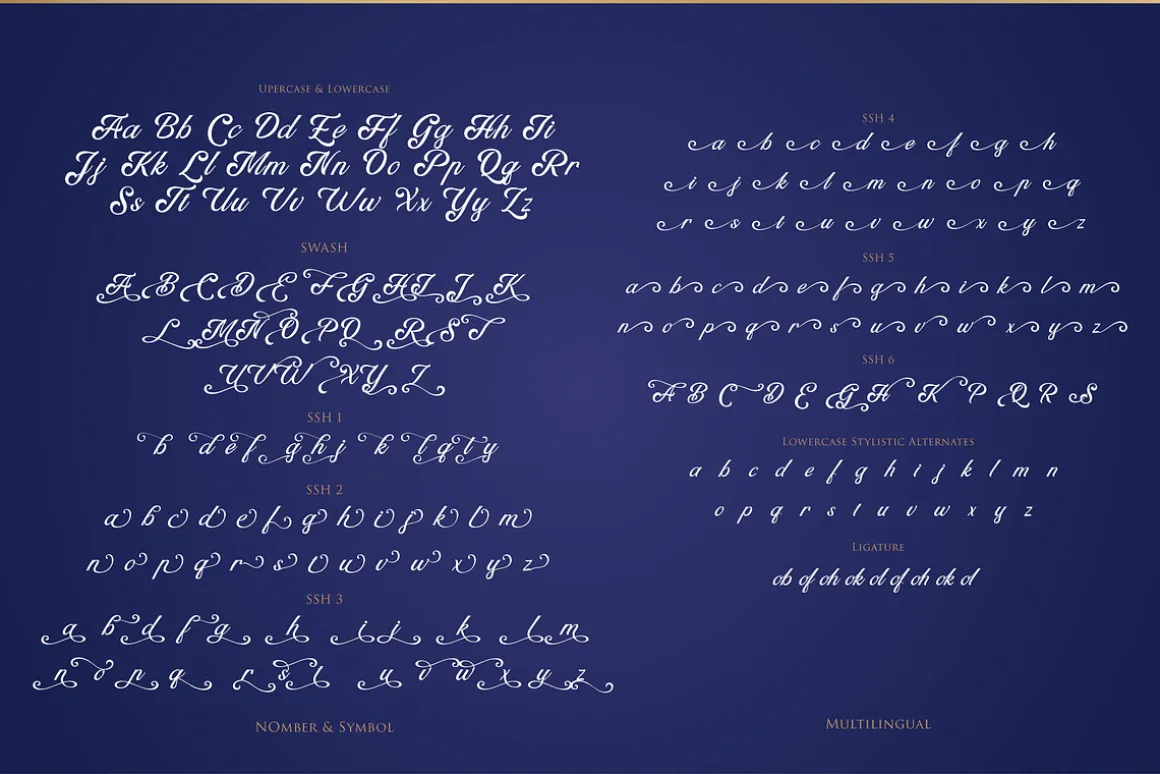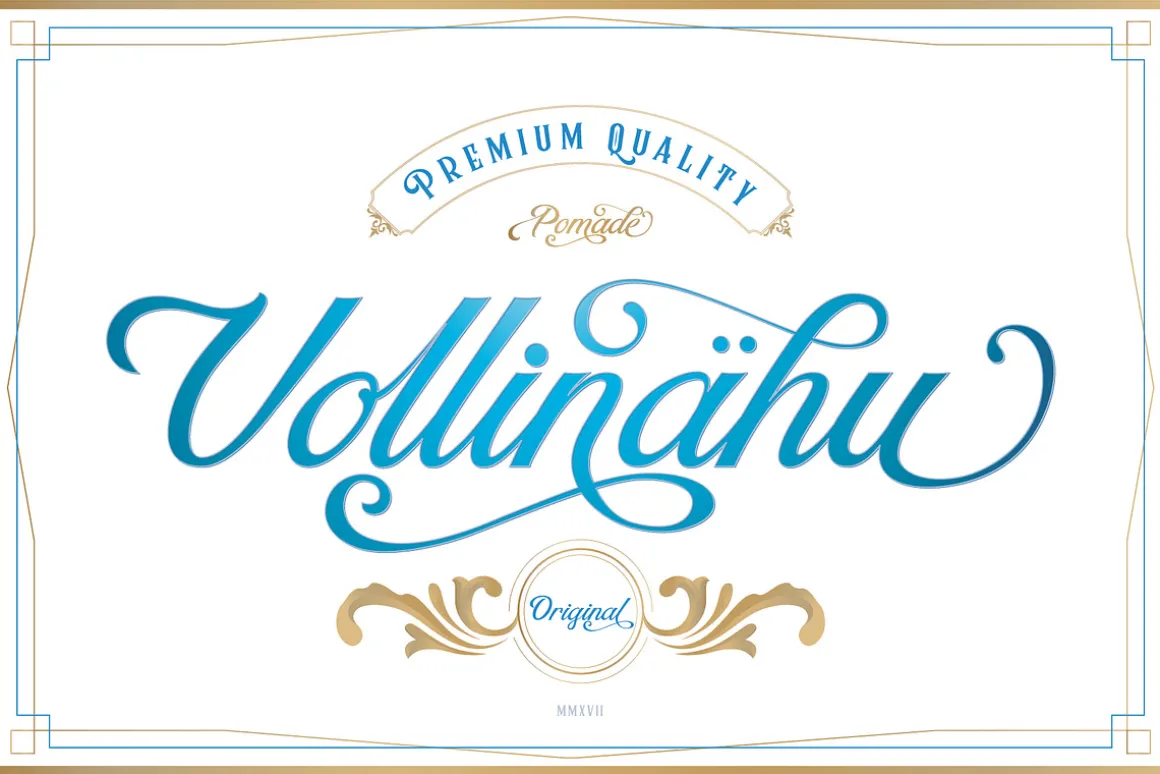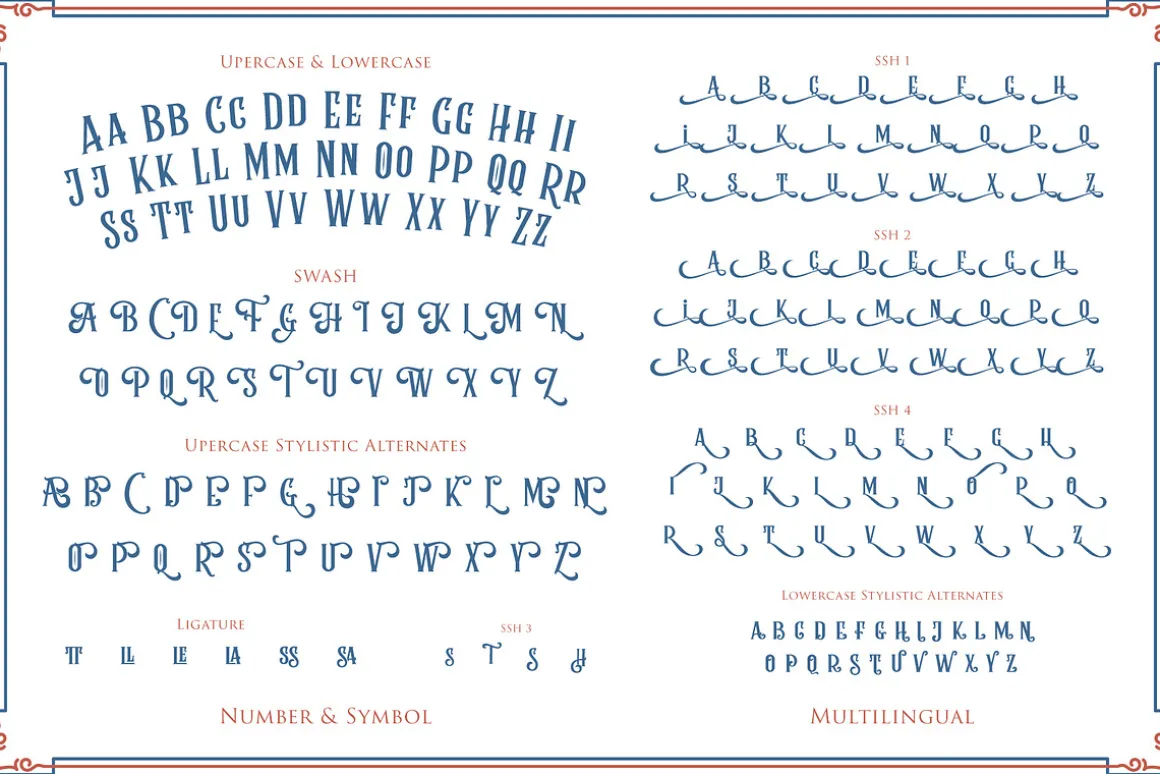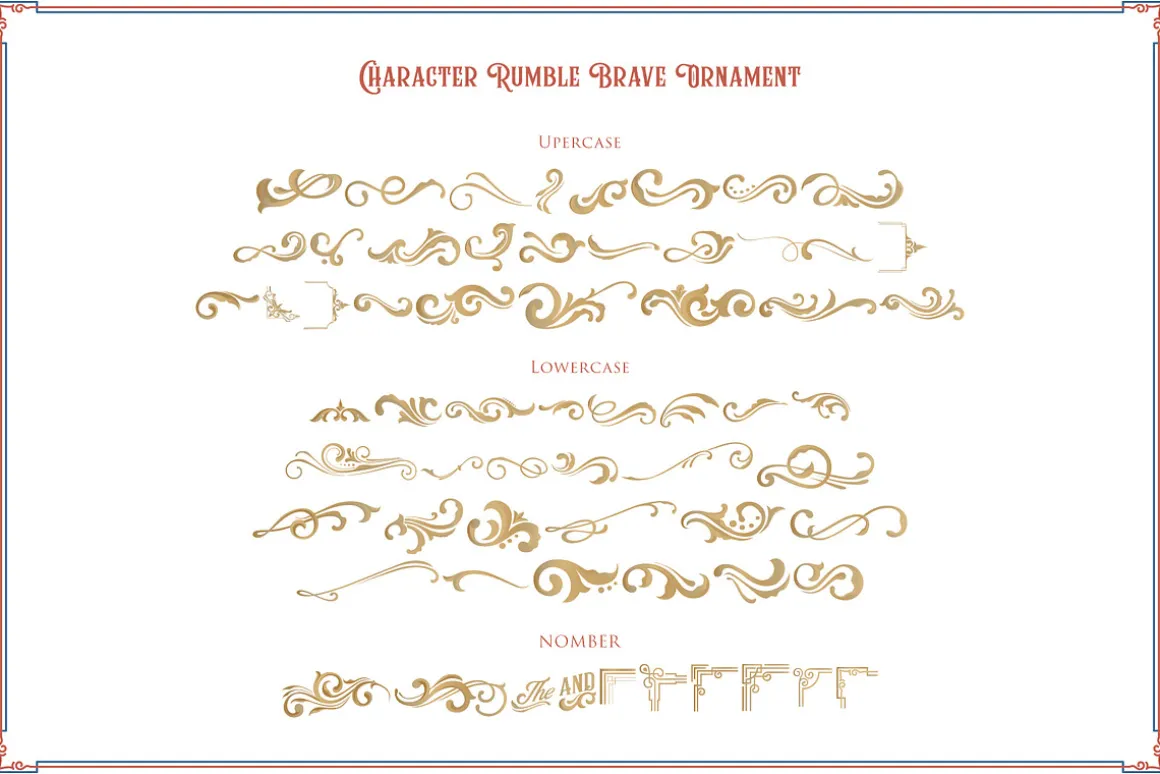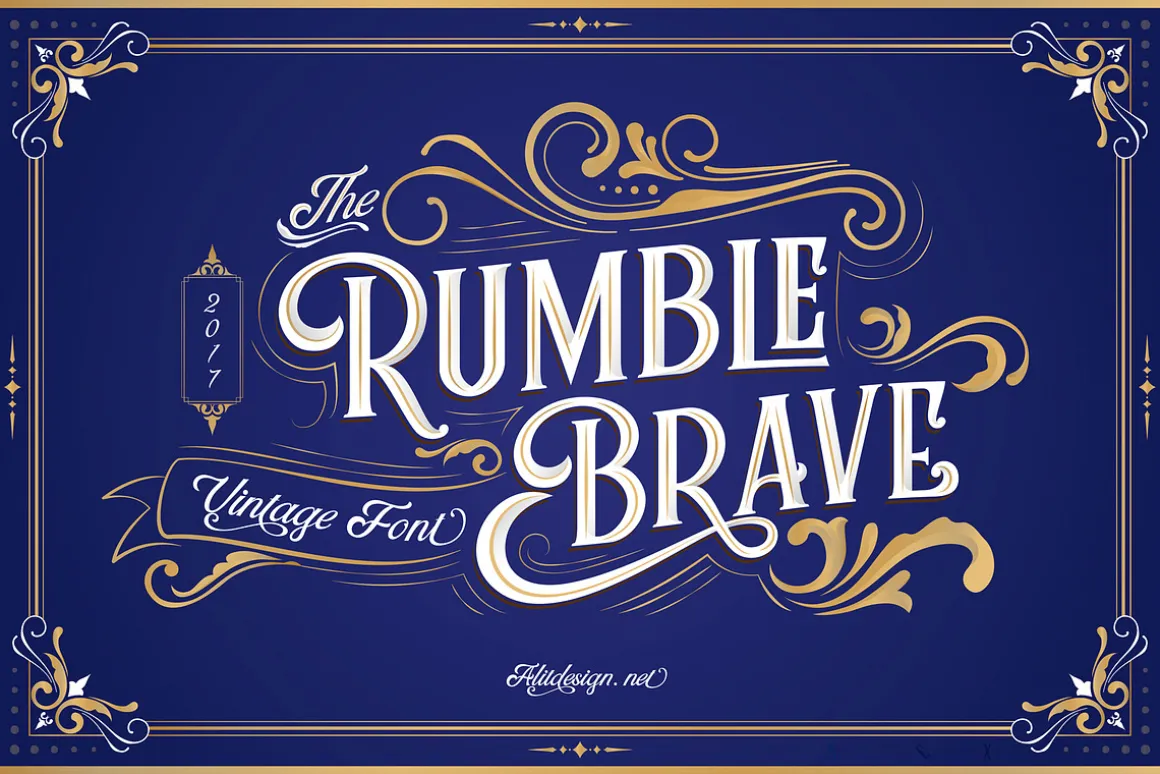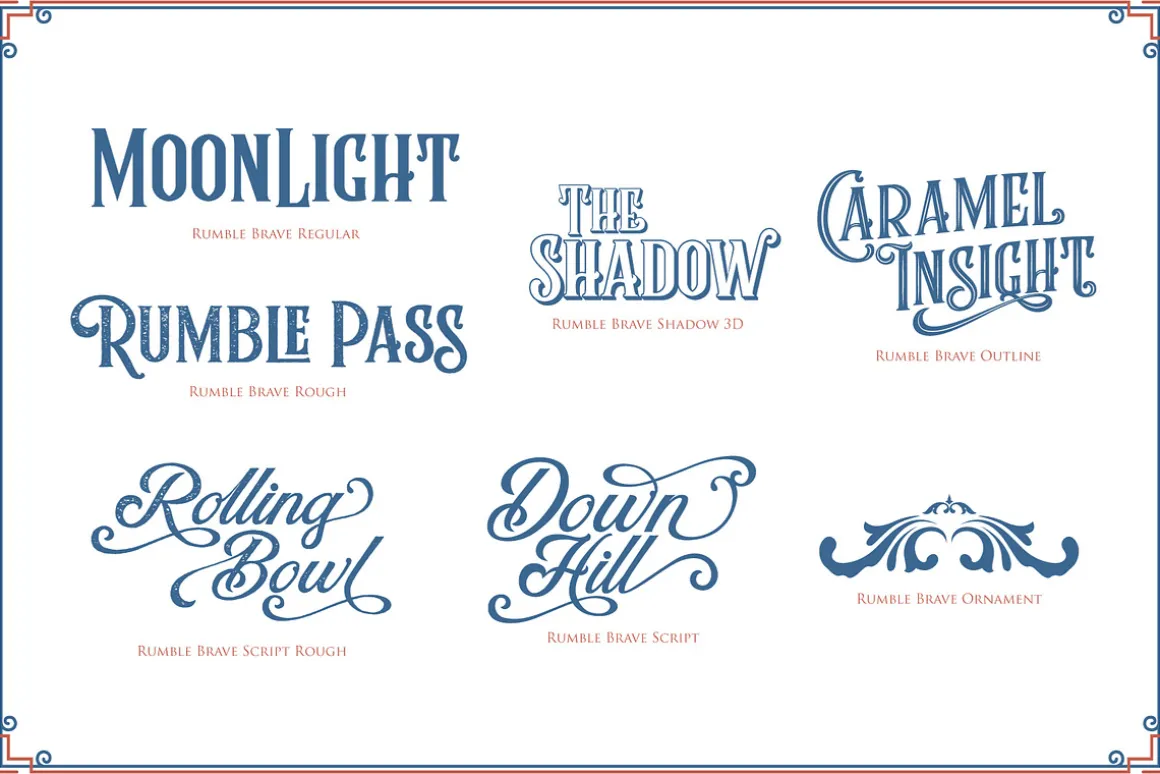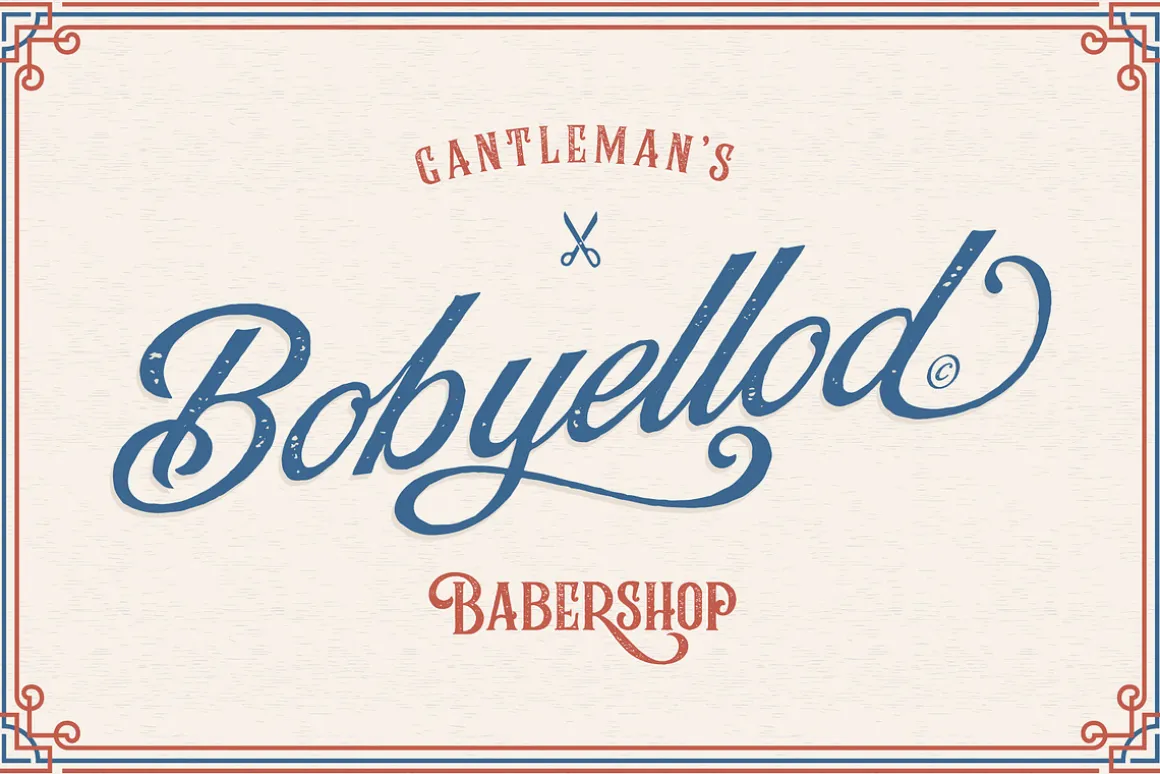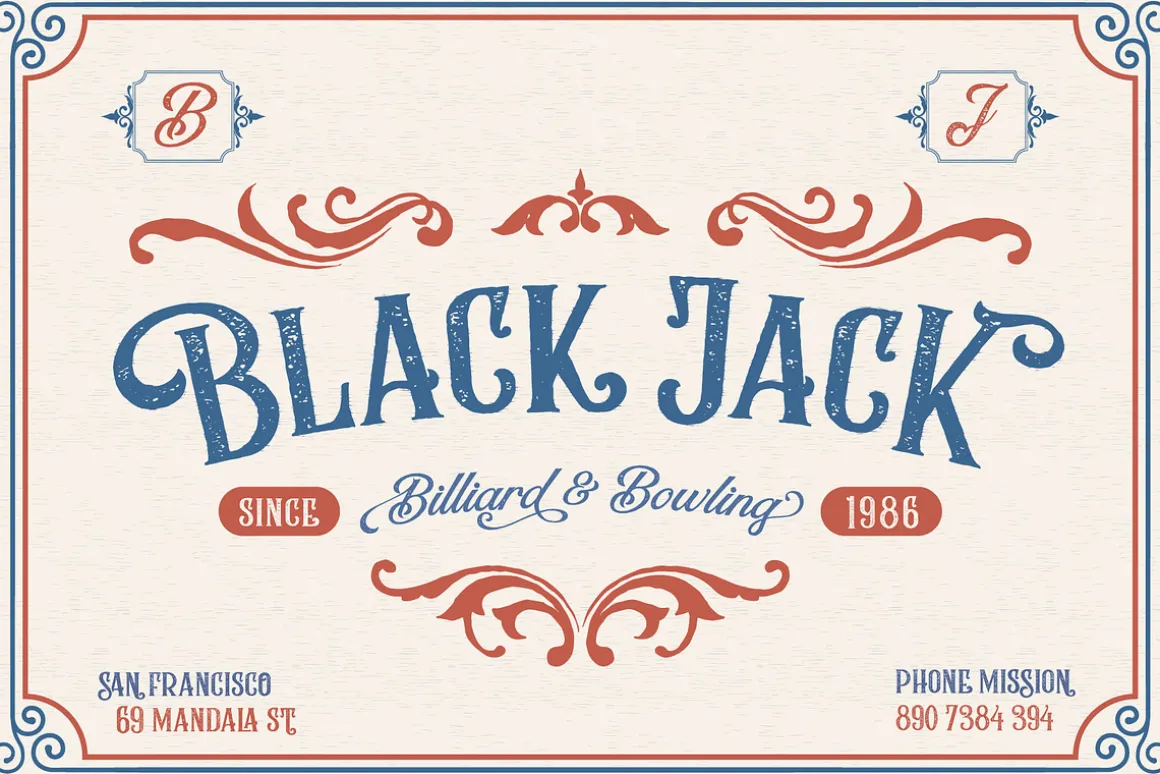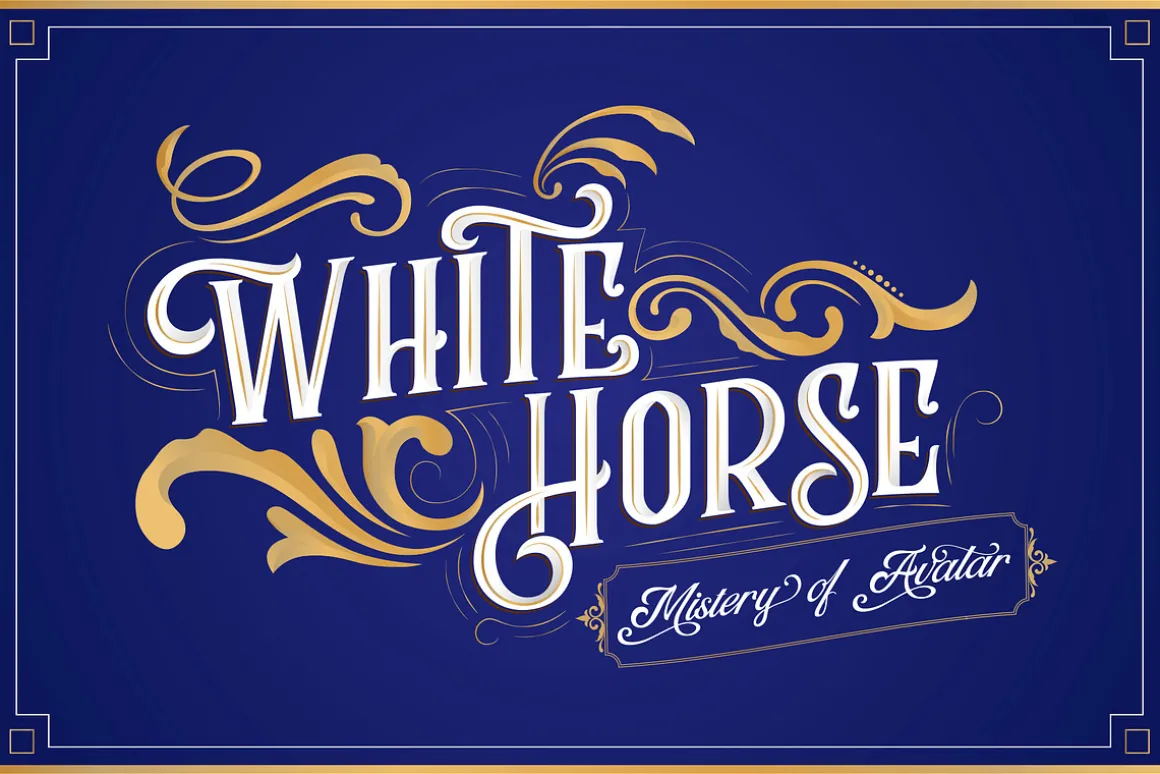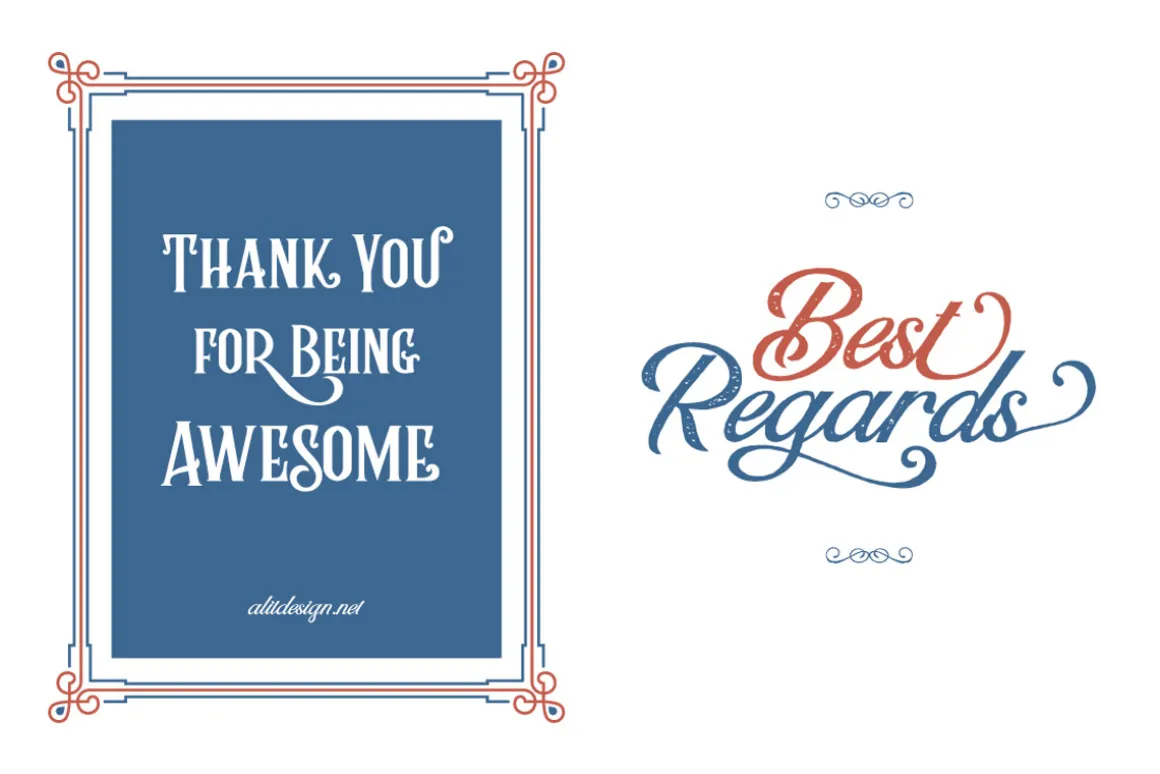
Introducing Rumble Brave Vintage Fonts Packages Lately I am happy to see the design style with its vintage victorian classic. hence from that I launch fonts packages with vintage style. In this packages there are 3 types of letters serif, script and dingbat. The three font combinations I launched are now very compatible if for the victorian classic design concept. As for if the font was worn by itself, without combinations are also brave.
Why should you have this Rumble Brave packages? In addition to many get unique character, luxury, Brave and elegant. You also have a collection ornament with two layers, very suitable if in the gradient. This font is also very easy to use with other design programs or with out design program.
Rumble Brave Typeface is perfect for beverage label design project. coffee label. logotype design, badges, classic wedding concept. victorian design concept and so on. gig poster, letterhead, droop cap, titles, and any artworks.
- Character Set A-Z
- Numerals & Punctuations (OpenType Standard)
- Accents (Multilingual characters)
- Standart Ligature
- Stylistic Alternates
- SS01
- SS02
- SS03
- SS04-SS05
- SWASH